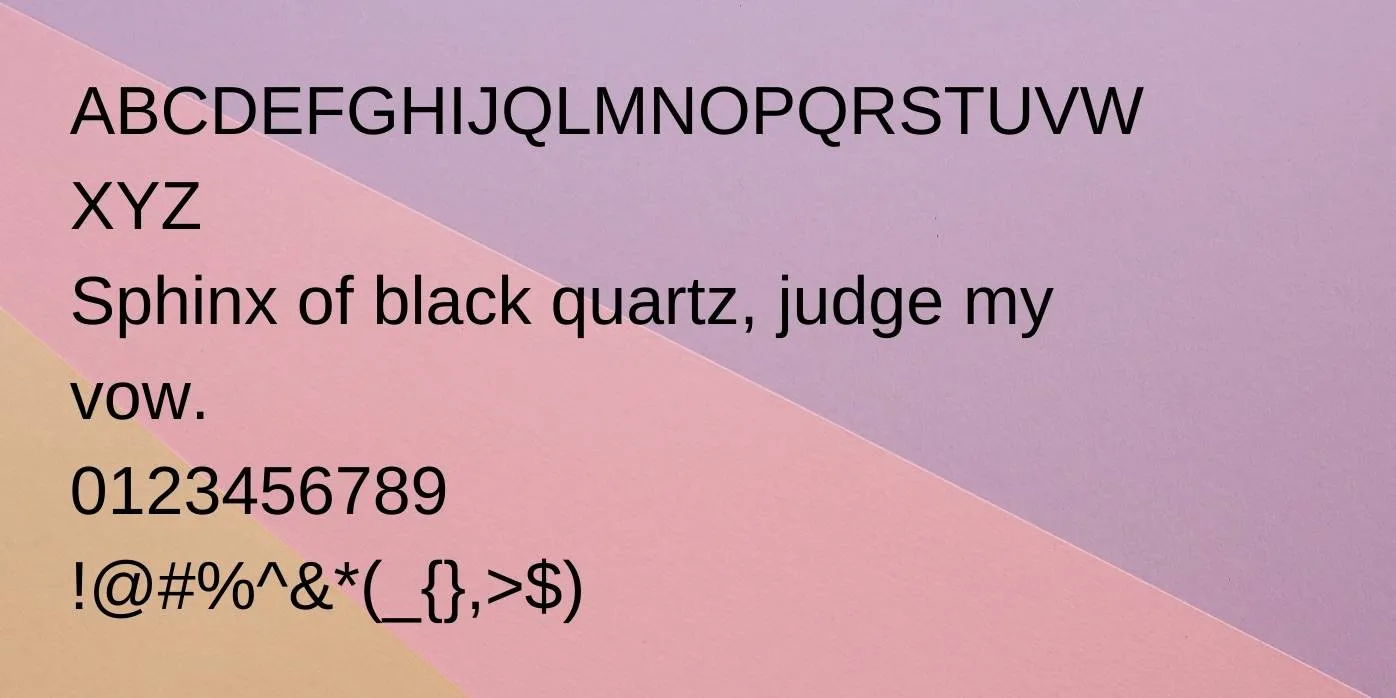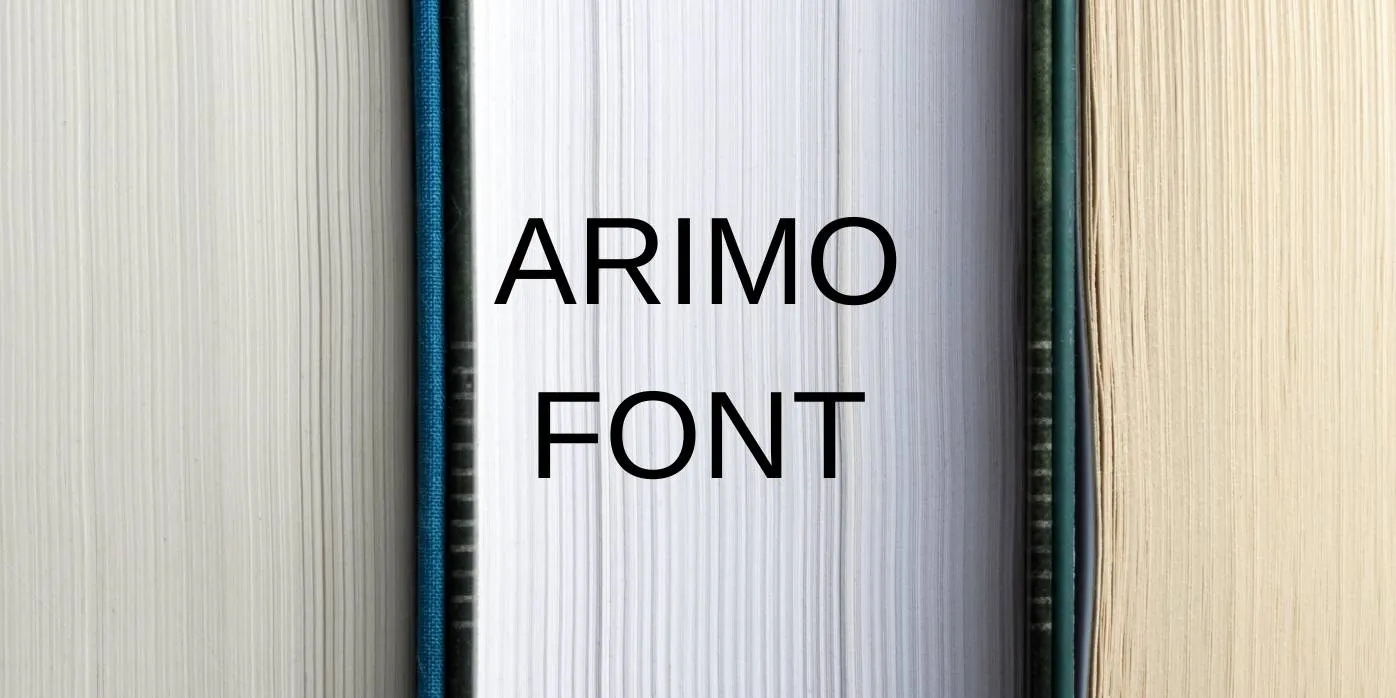
Arimo Font
Arimo font is a beautiful and general typeface that belongs to a Sans Serif font family. It is a famous typeface and the designer of this font is Steve Matteson. It has a TTF feature and is free for personal and commercial also. The font has TrueType outlines and Opentype layout and it has 4 unique styles includes Regular, Italic, Bold, and Bold Italic also.
All the style has simple and general glyphs include Uppercase and Lowercase Letters, Numbers and Numerals, and useful symbols also. This sans serif font is very common for both printing and digital projects and can fit on all kinds of designs due to its simple style look. You may also generate this typeface through an online generator tool and one of the great things about this font is that it is free for commercial use. Usage This sans serif font is very common for both printing and digital projects and can fit on all kinds of designs due to its simple style look.
You may also generate this typeface through an online generator tool and one of the great things about this font is that it is free for commercial use. In addition, you can apply this font to the logo designs, Youtube Thumbnails, Wallpaper Designs, Web-Based Designs, Typography logos, T-shirt designs, product packaging, Art & Illustration, and many other related projects like this. The font is very common for making many designs and projects in CSS and adobe software. You may also this font in canva for making stunning designs.
Does Google have Arimo Font? Arimo font is a beautiful and general typeface that belongs to a Sans Serif font family. It is a Google font that you can get from their official website or you can download it from our website also. Who Created Arimo Font?
This typeface is a beautiful sans serif font designed by Steve Matteson. You can download it from our website and install it on your operating system.